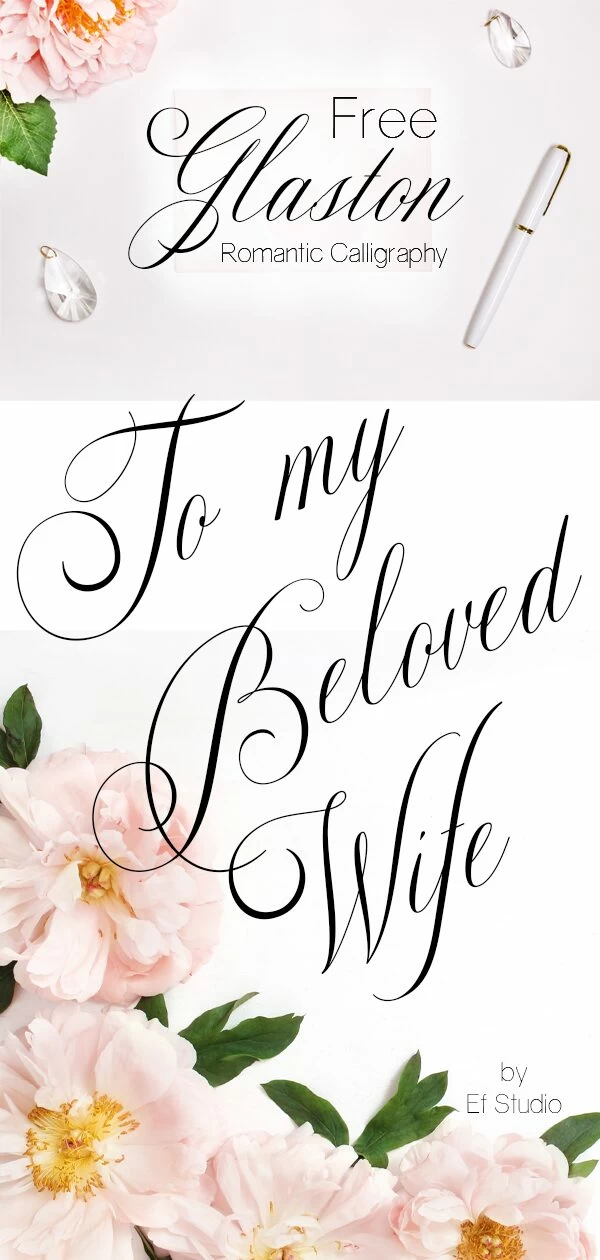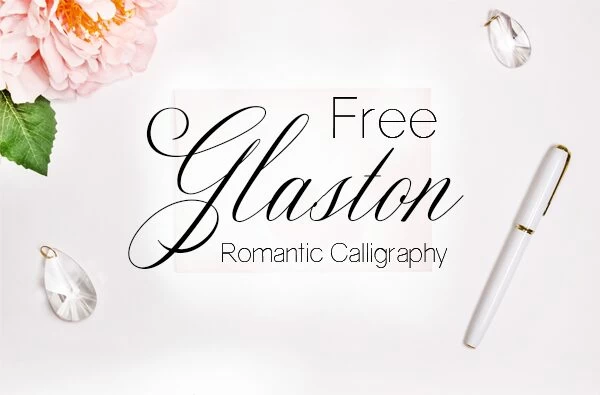
Free Font: Glaston Romantic Calligraphy Script Font. Perfect for upscale packaging, wedding stationery, business cards, branding and other projects that require a touch of handwriting luxury.
Free Calligraphy Font Glaston
If you have been following me for a while now, you know how much I love to feature and give away free fonts. Not just any kind of fonts though. They have to be particularly pretty or quite useful for a variety of projects. Since there are a ton of fonts that don’t meet that criteria I was head over heels when I found this Lovely Free Calligraphy Font called Glaston and couldn’t wait to share it with you!
Beautiful Handwriting Fonts
The Glaston script is an especially beautiful handwritten font delicately and professionally crafted by Ef Studio. The Free Version is available for personal projects and doesn’t include all the extra clipart and swathes. But here are some ways you could use it for personal purposes:
- Your wedding invitations
- Stationery
- Gift Tags
- Cardmaking
- Scrapbooking layouts
- Personalized gifts for friends and family
- T-Shirts
- Mugs
Creating fancy designs is easy with this free calligraphy font because of its elaborate capital letters. You can see in the example image below that with just a few words you can take a pretty “stock photo” and turn it into something personal and extra special. I am excited to start creating some special wall art with it!
• The full Glaston version includes full set of gorgeous uppercase and lowercase letters, multilingual support, punctuation, ligatures, alternates, swash and stylisticset from ss01 to ss19. Six gorgeous ampersands, gorgeous extras from a to z and beginning and ending numerals swashes. everything can be easily accessed using software that supports OpenType. Like Adobe Indesign, Adobe Illustrator CS, Adobe Photoshop CC, and Corel Draw.”